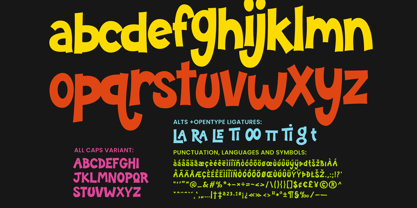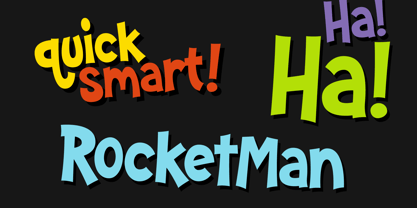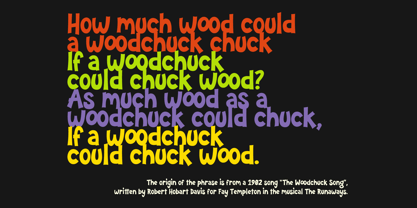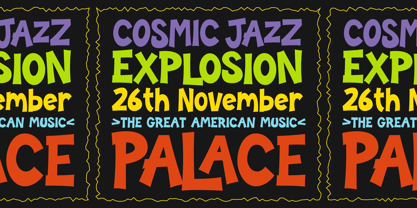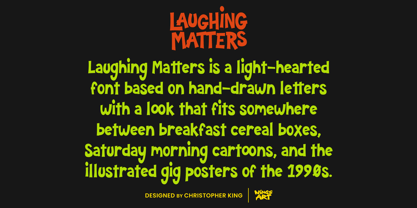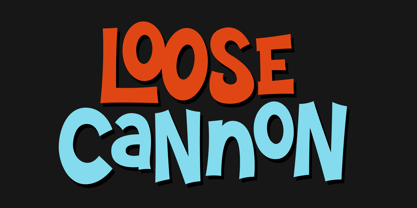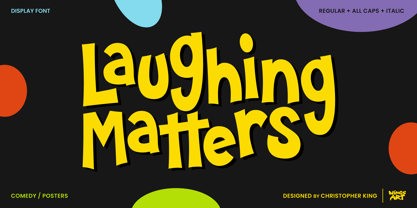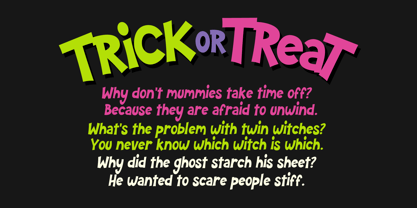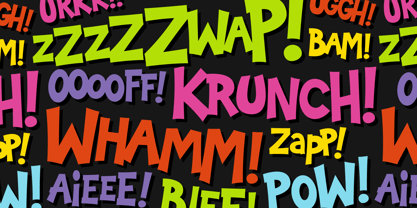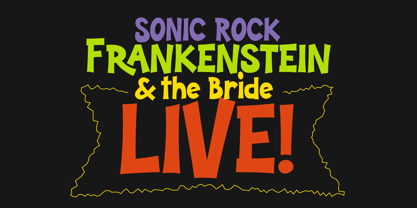
Laughing Matters
The Laughing Matters Font Family was designed by Christopher King and published by Wing's Art Studio. Laughing Matters contains 4 styles and family package options. More about this family
Laughing Matters is a light-hearted font based on hand-drawn letters with a look that fits somewhere between breakfast cereal boxes, Saturday morning cartoons, and the illustrated gig posters of the 1990s. When used in its loose and bouncy lowercase format, it suits projects with a comedic theme leaning into nostalgia, while its uppercase or all-caps variant can feel more modern and punk. It remains legible at large and small display sizes, making it particularly versatile on titles, posters, and packaging designs. The Laughing Matters font includes a regular version with uppercase and lowercase characters, numerals, and multilingual support, plus stylistic alternatives and ligatures. It also features an all-caps variant with unique upper and lowercase characters, plus italic versions of each. It’s also been carefully designed to be lightweight for web users, whilst retaining high visual impact and customisability. When you need to play the joker, this is a great typographic tool to hide up your sleeve. Enjoy!
Christopher King (aka Wingsart Studio) is a Graphic Designer specialising in hand-drawn lettering for film and television titles. From blockbuster films to indie press, Wingsart Studio fonts have appeared on screens big and small around the globe. His work has been used by companies including Disney, Marvel, Apple, Netflix and Paramount Studios.The Wingsart Studio philosophy is to embrace the imperfections inherent with real pens, pencils, paper and brush. In counter-balance to an AI driven age, these fonts remain refreshingly analogue and proud of their human touch. Before a single letter turns into a digital product, countless hours are spent researching and sketching out ideas in pursuit of those perfect lines and shapes.